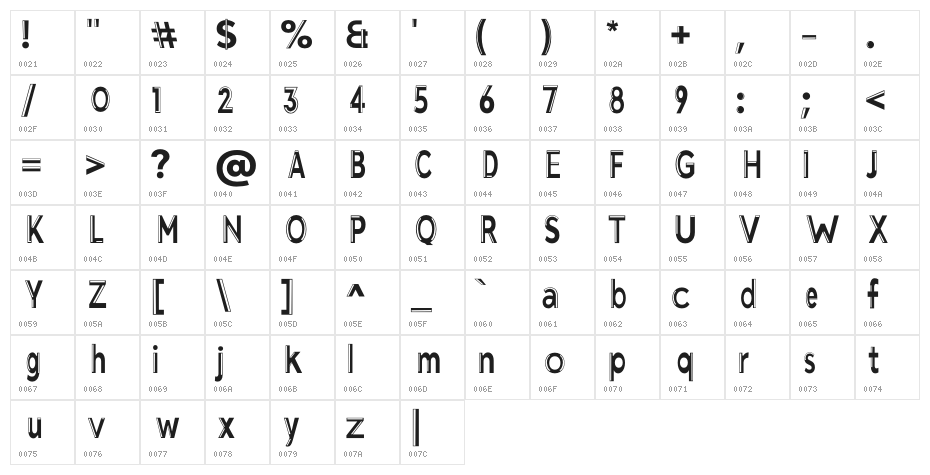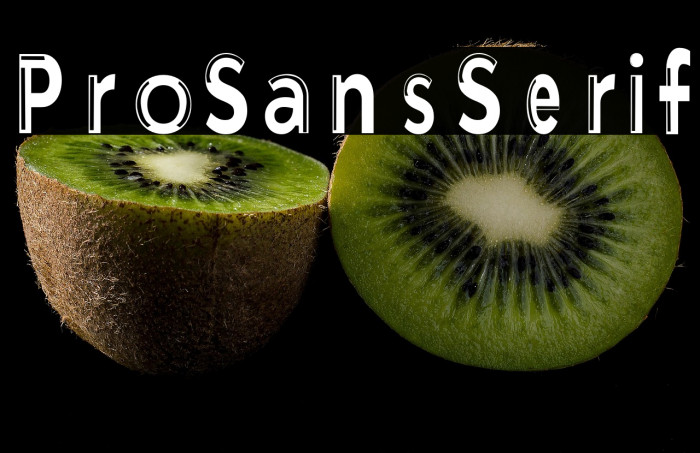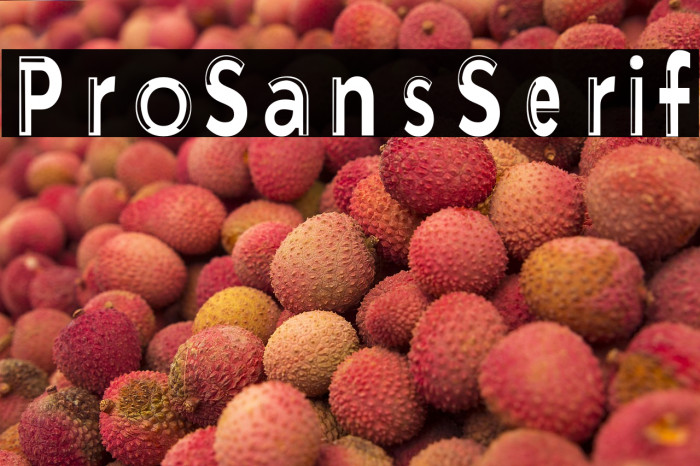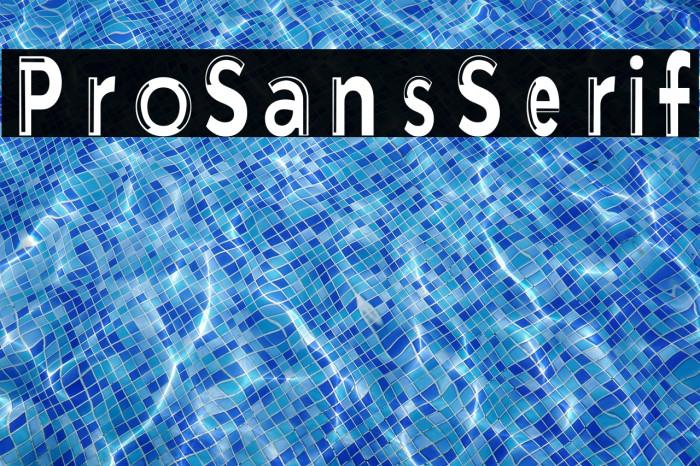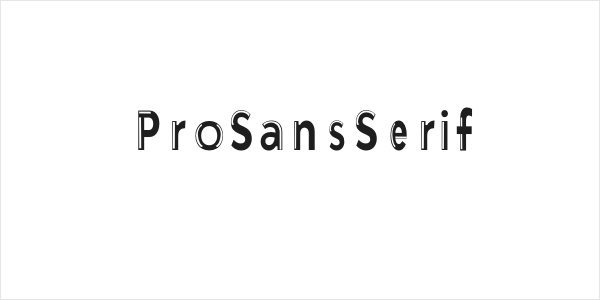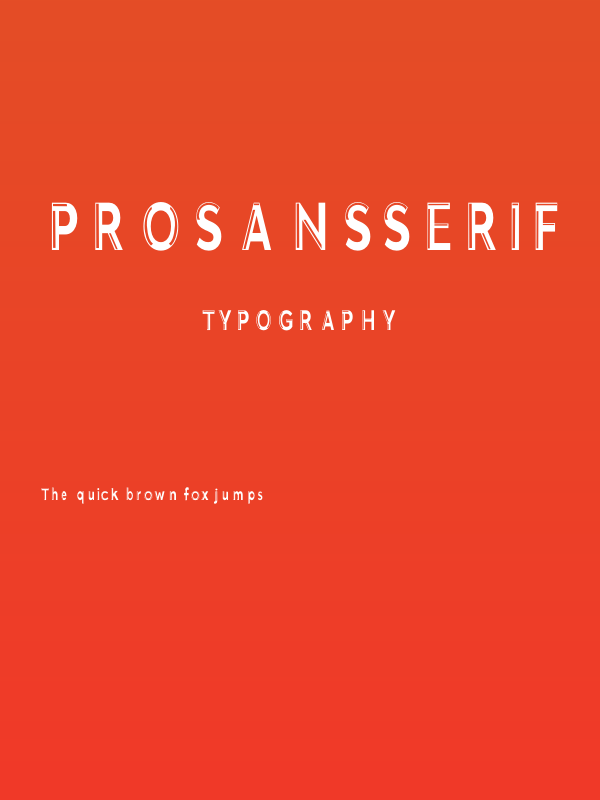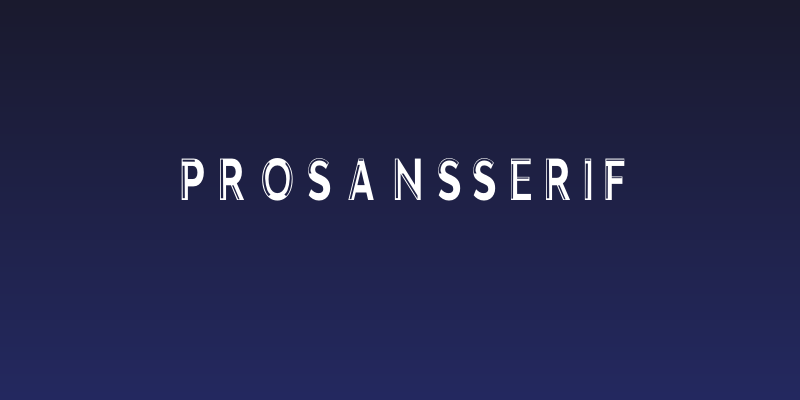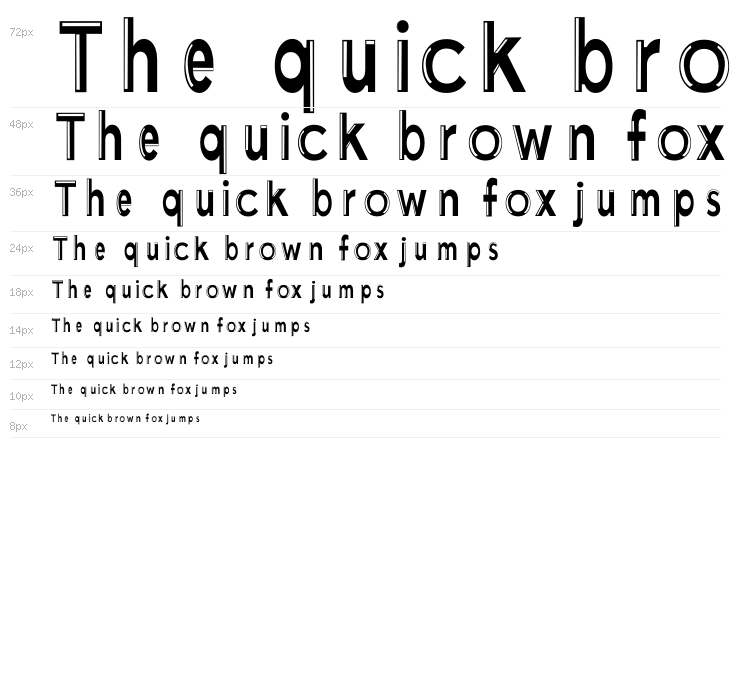
ProSansSerif Font
Introduction Pro sans serif font is a modern sturdy and striking sans serif typeface that furnishes an attractive look to designs and texture contents when used with Arial font. The main designer of this typeface is a well-appreciated designer Freefontfa
| Caso d'uso | Headlines, Logos, Digital content |
| Progetti proposti | Ideal for branding, advertising, headlines, and digital content where a modern and clean look is desired. |